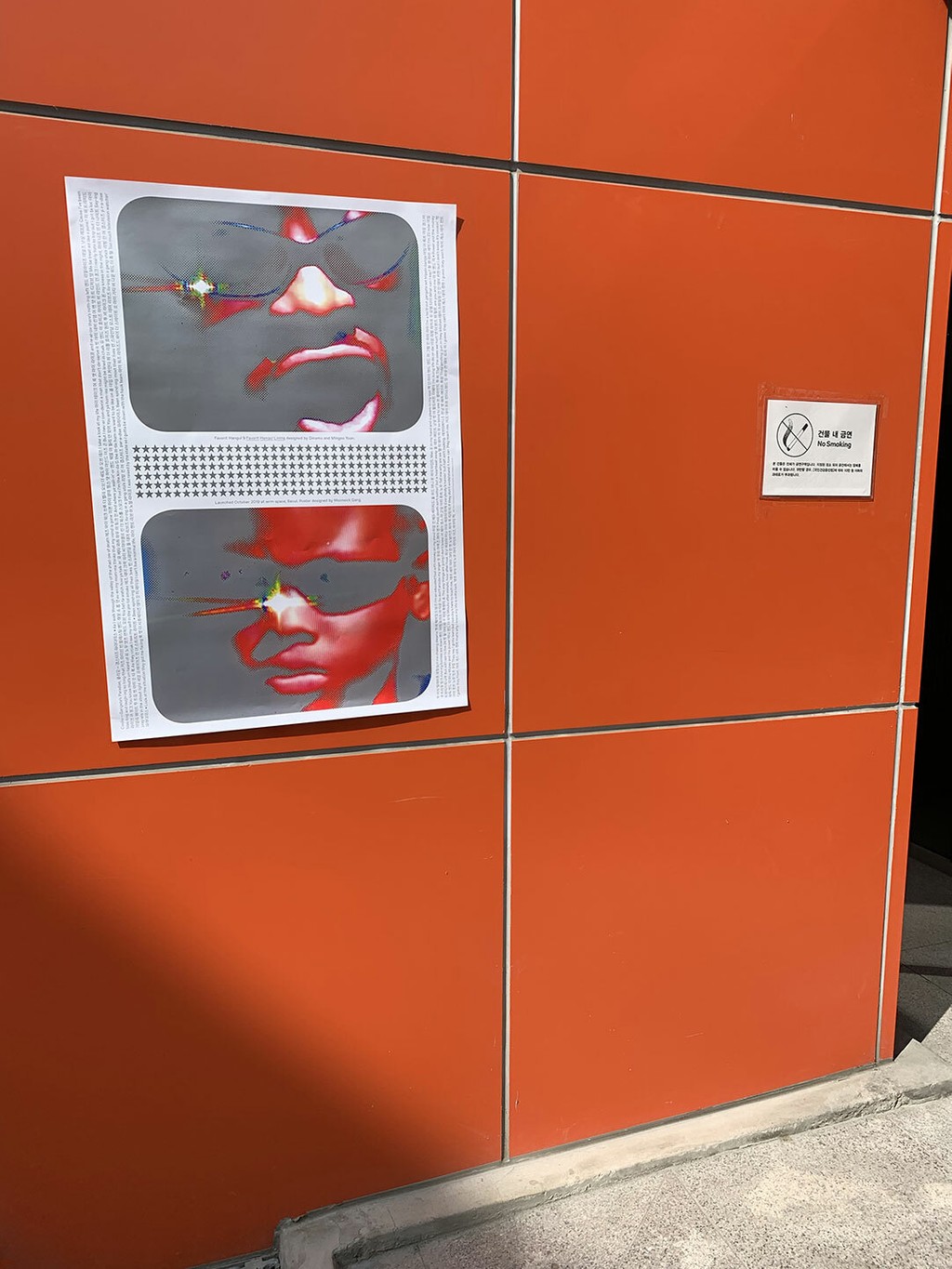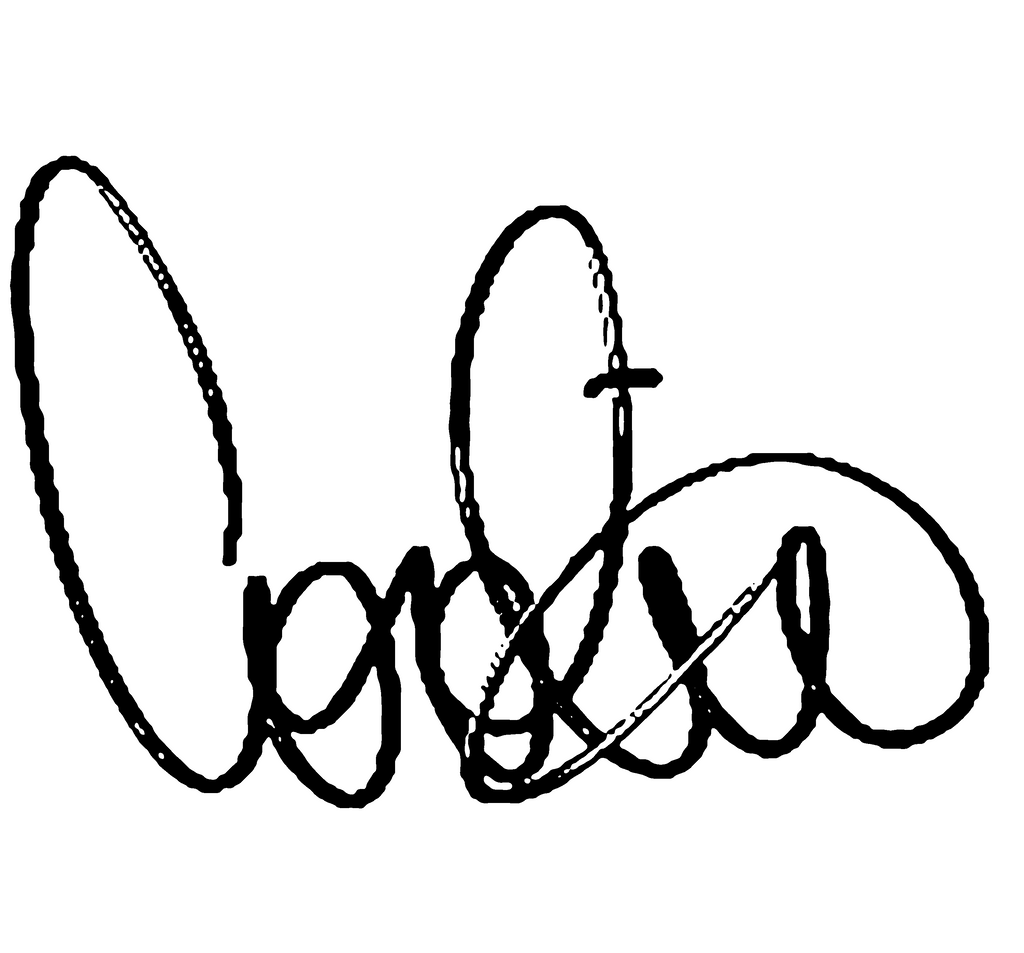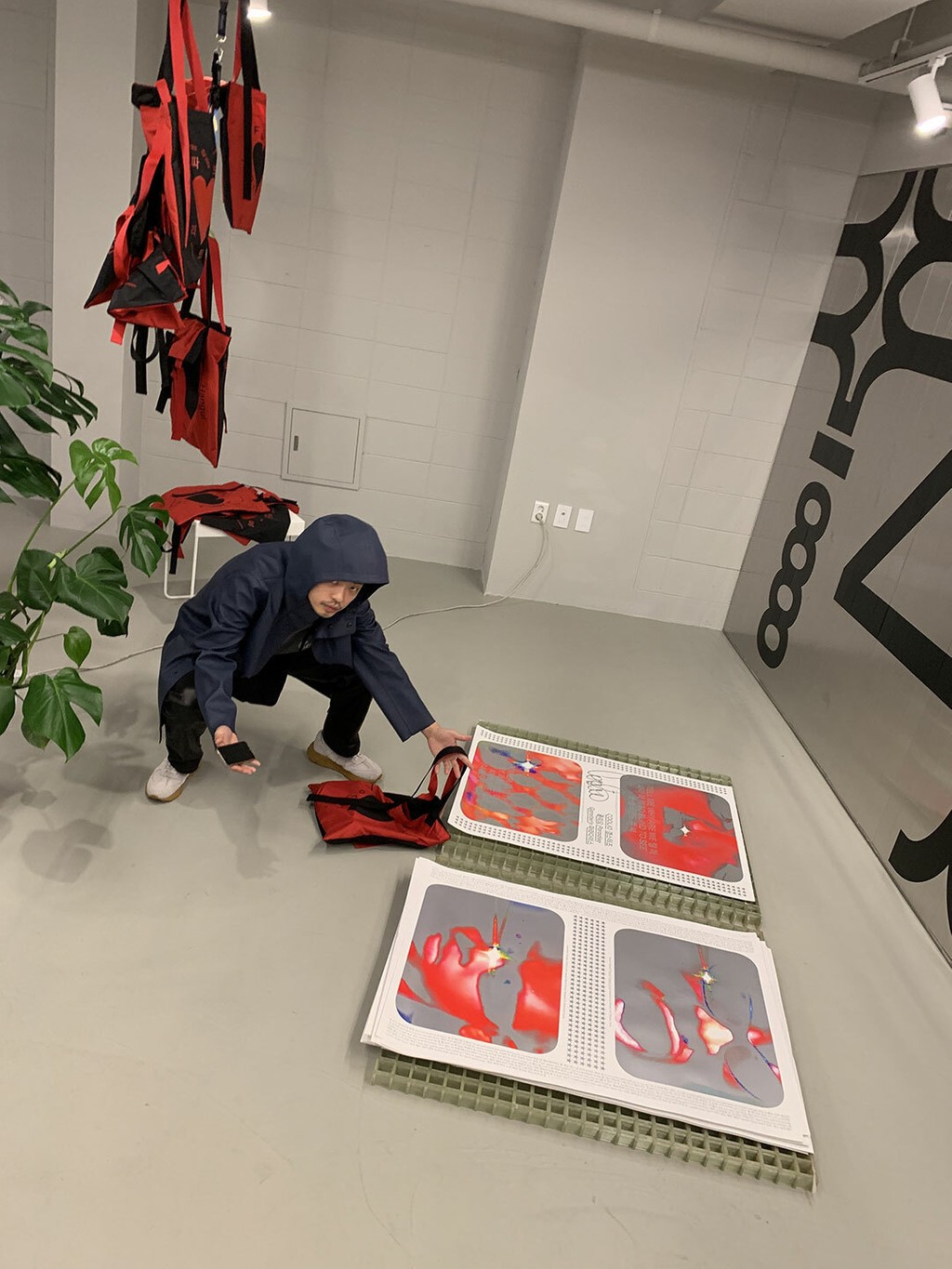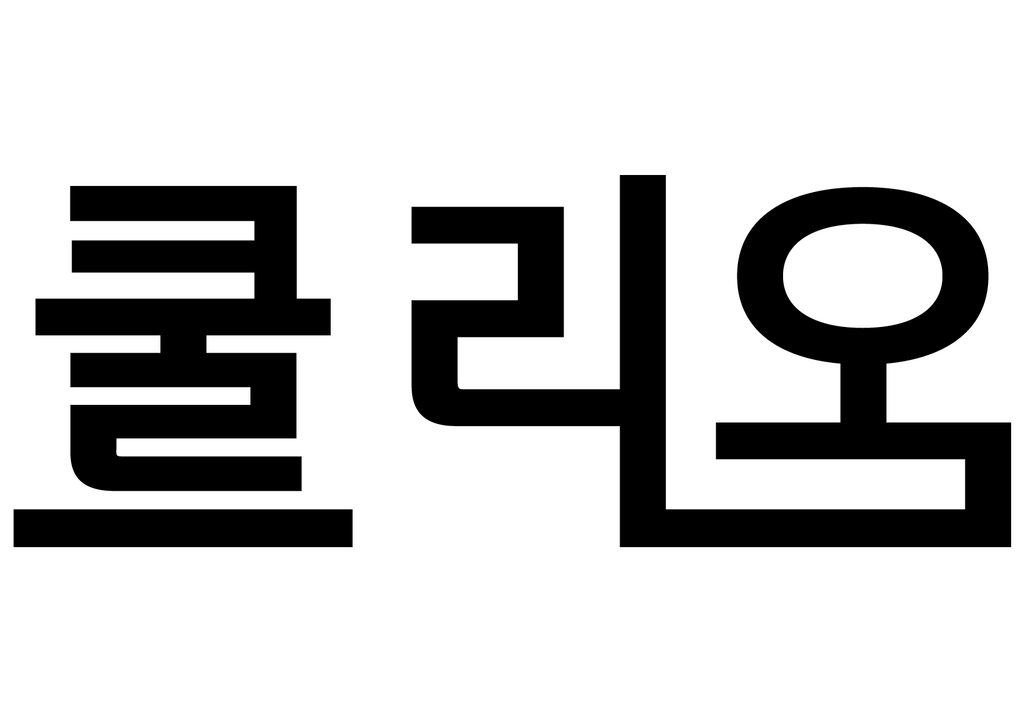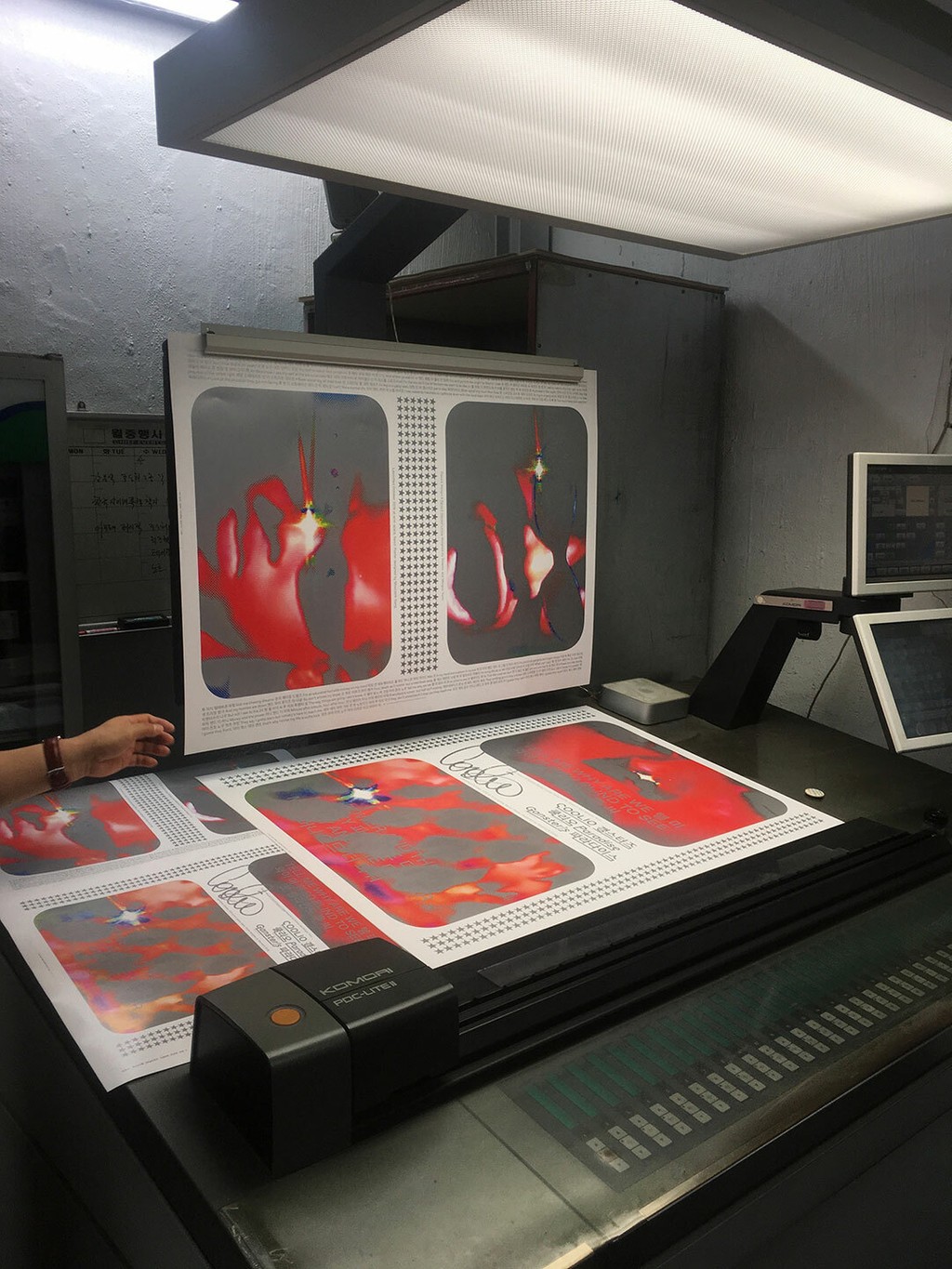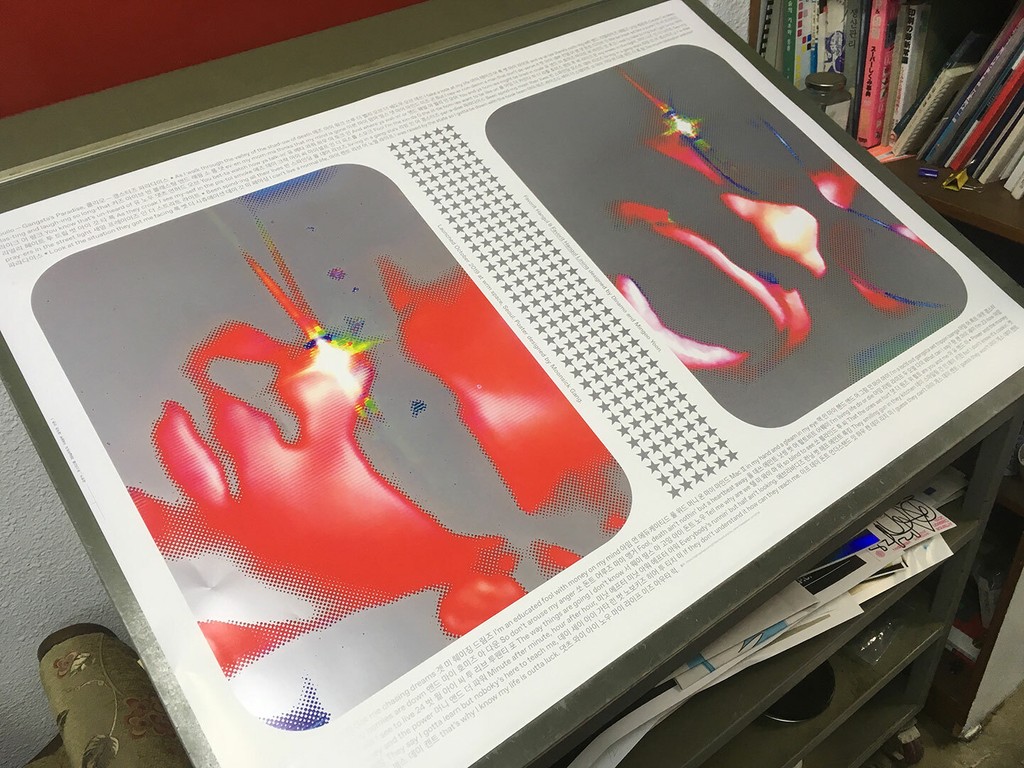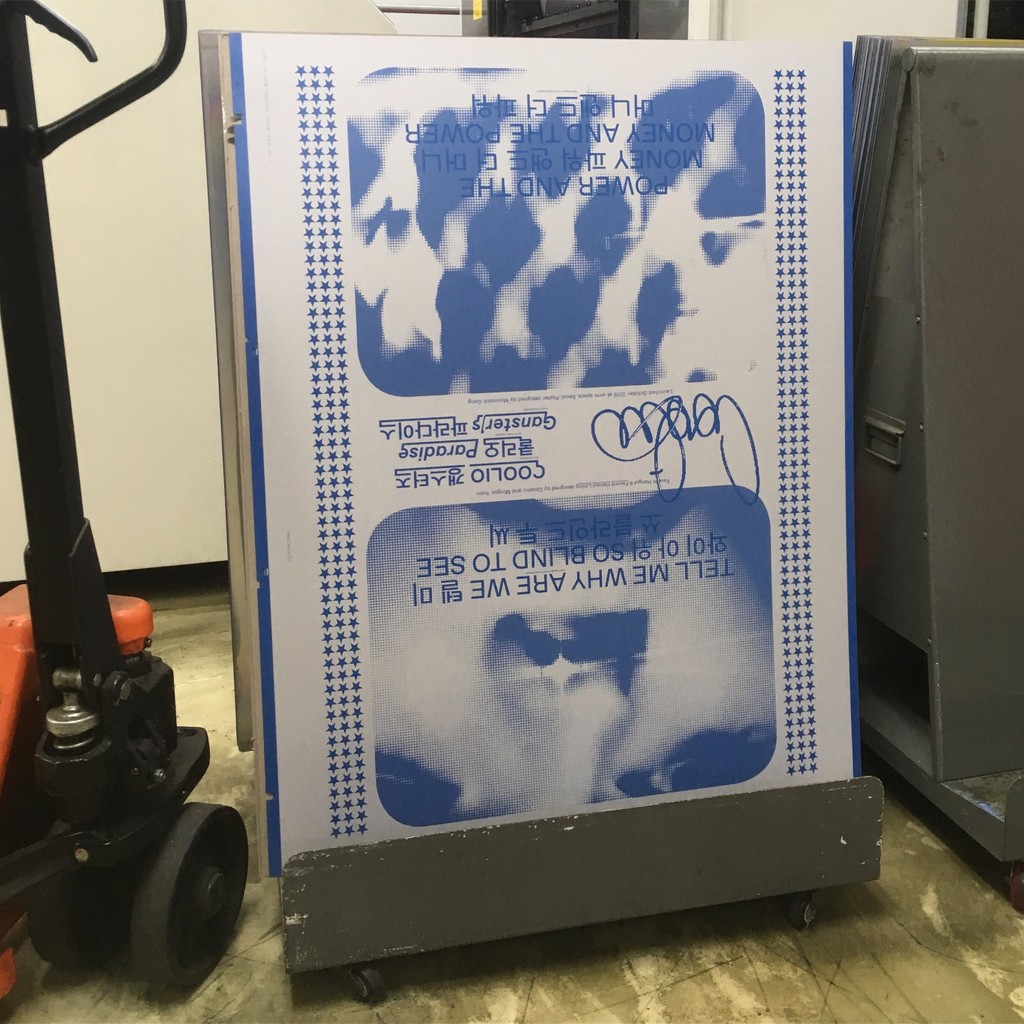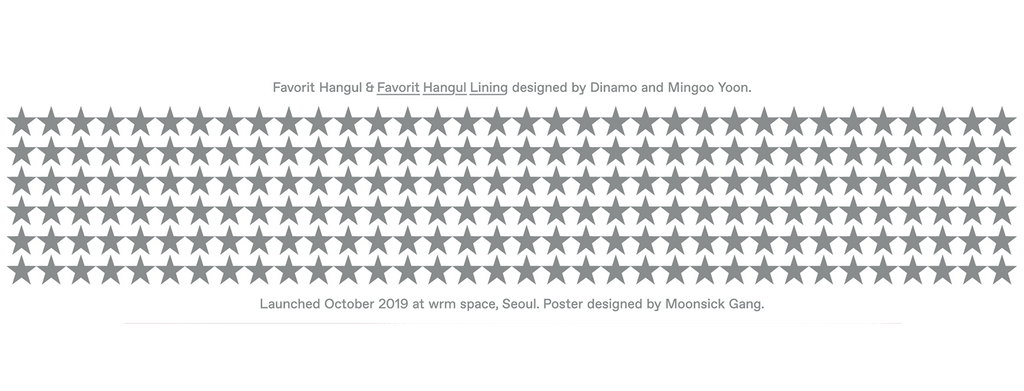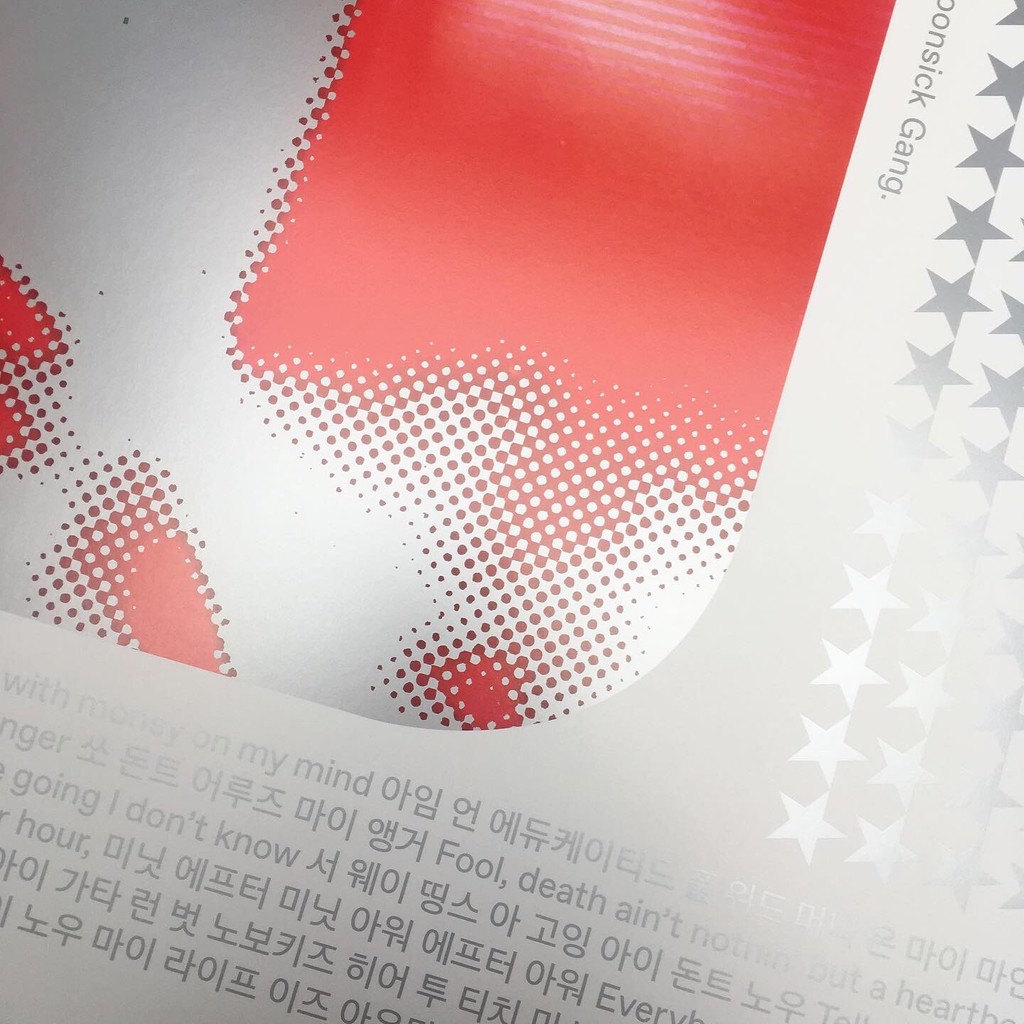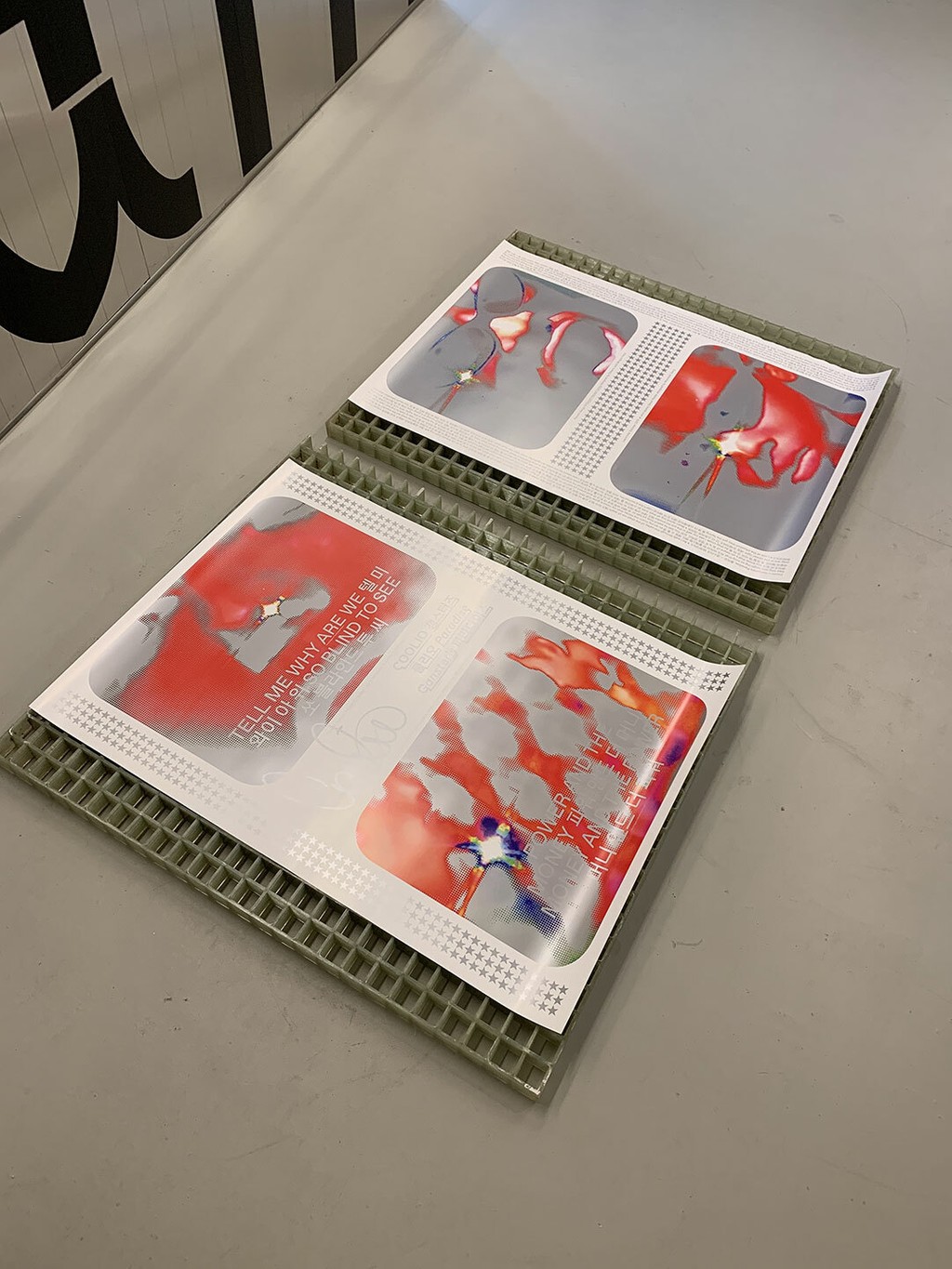
Hangul Poster
Posters designed by Moonsick Gang and printed in an unnamed Offset Shop in Seoul. 5 colors including silver and 841 × 1189 mm in size, the design celebrates the possibilities of bilingual layouts with ABC Favorit and ABC Favorit Hangul by featuring lyrics from the Korean remake of Coolio’s “Gangsta’s Paradise.”
- 841 × 1189 mm
- 5 spot colour PMS Offset print
- Satin high gloss paper